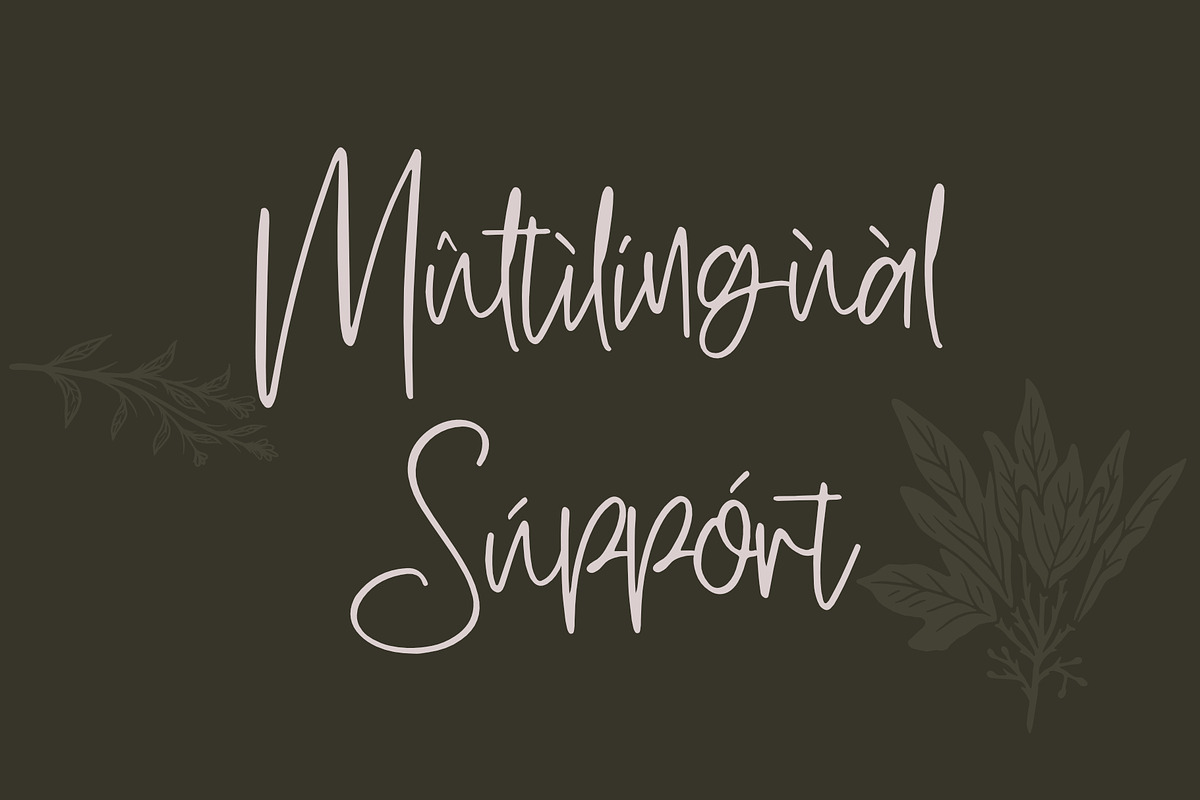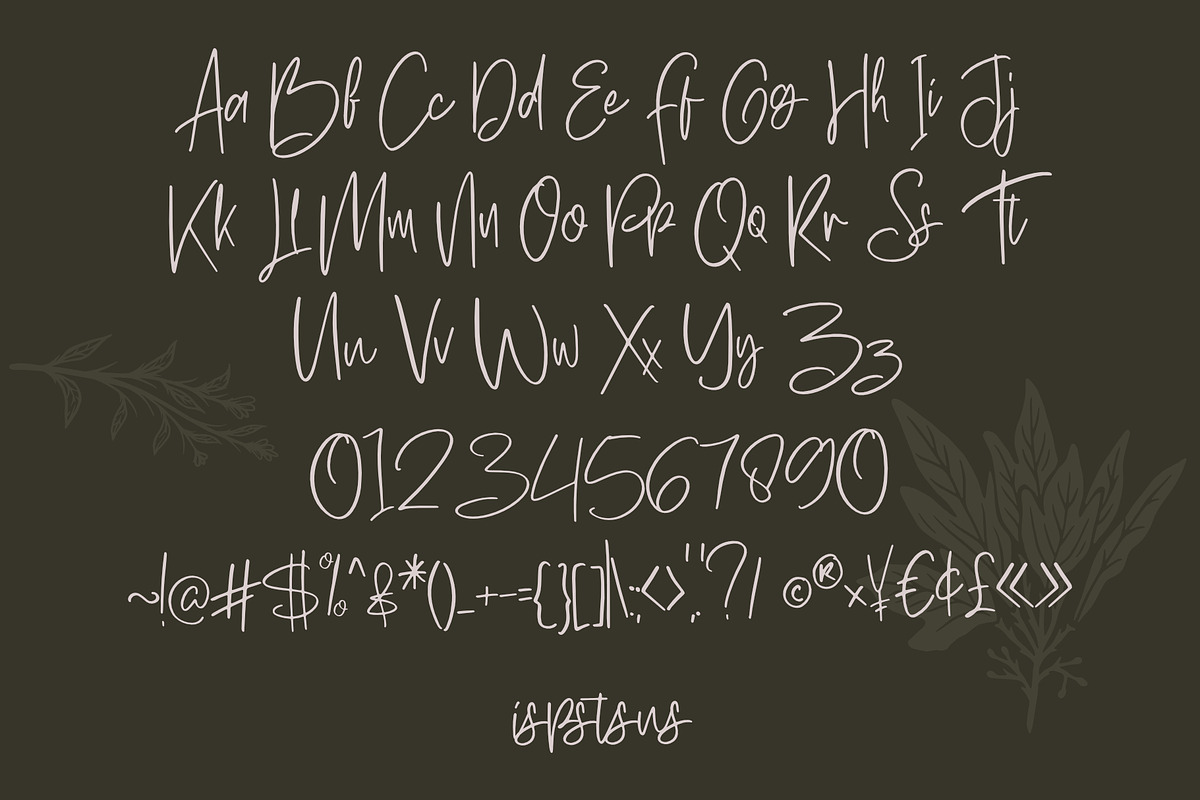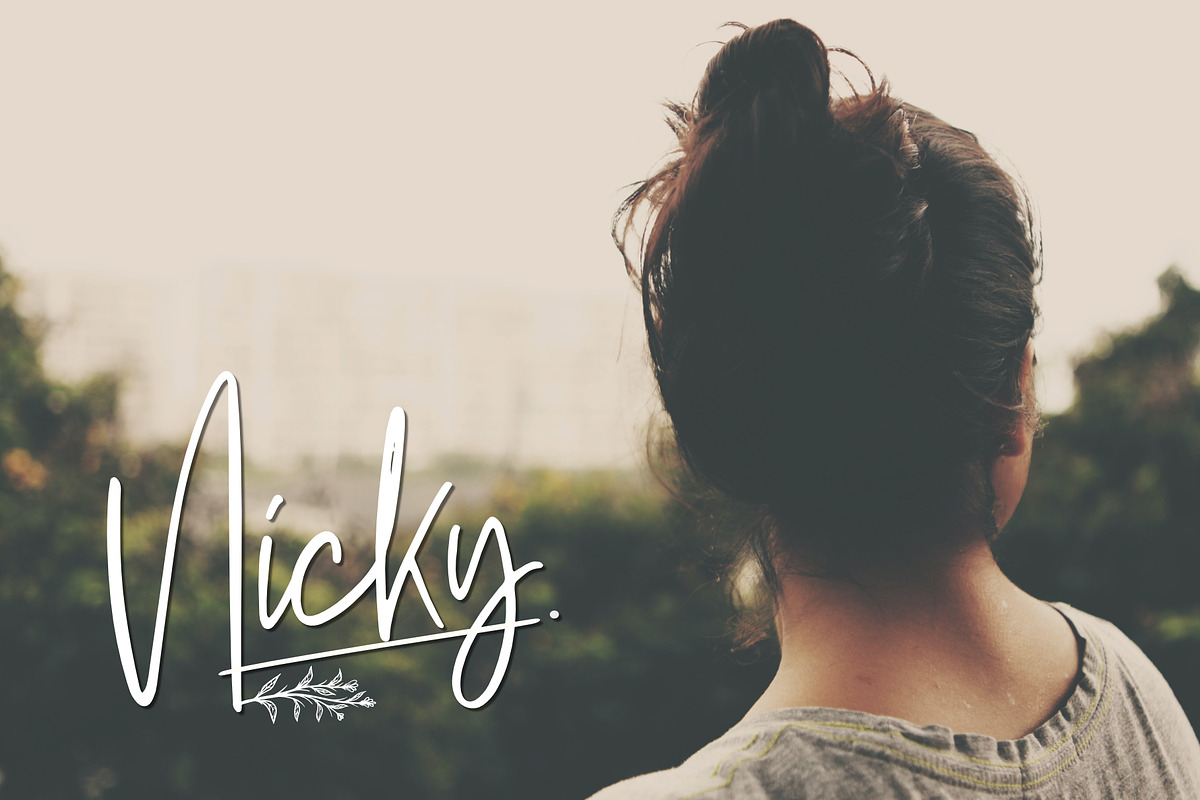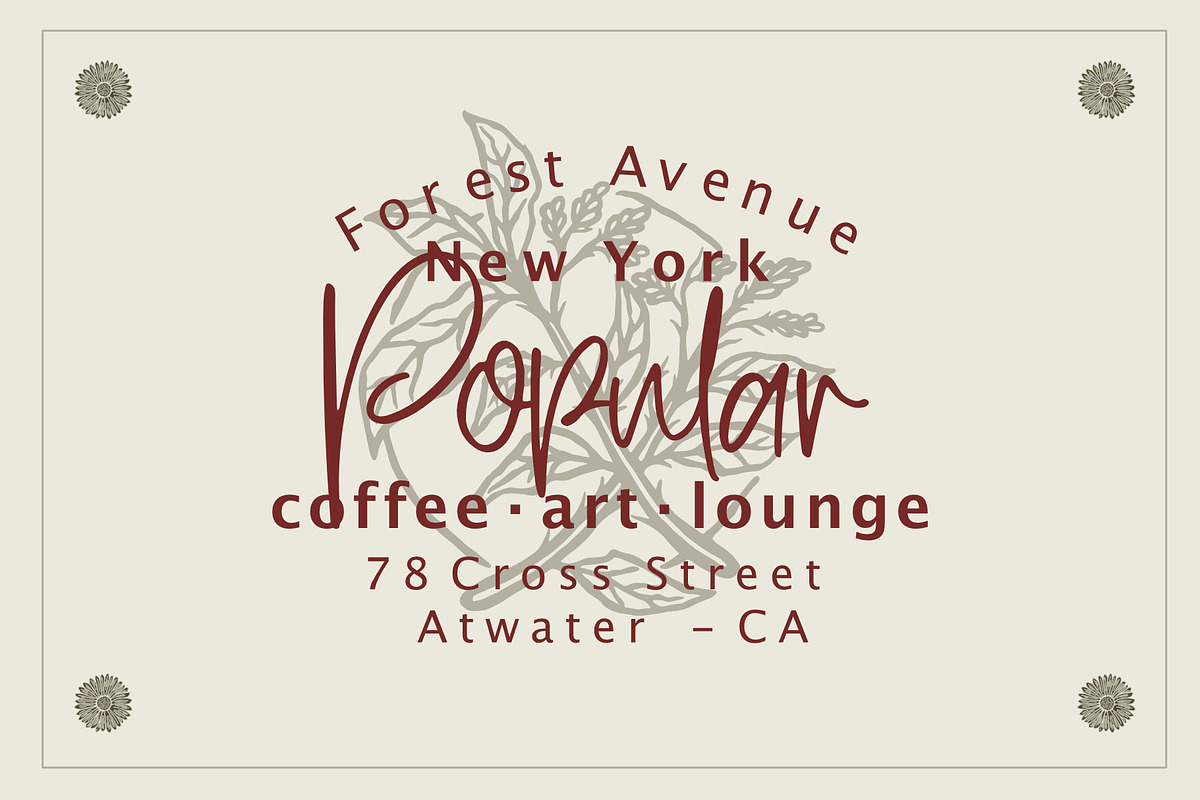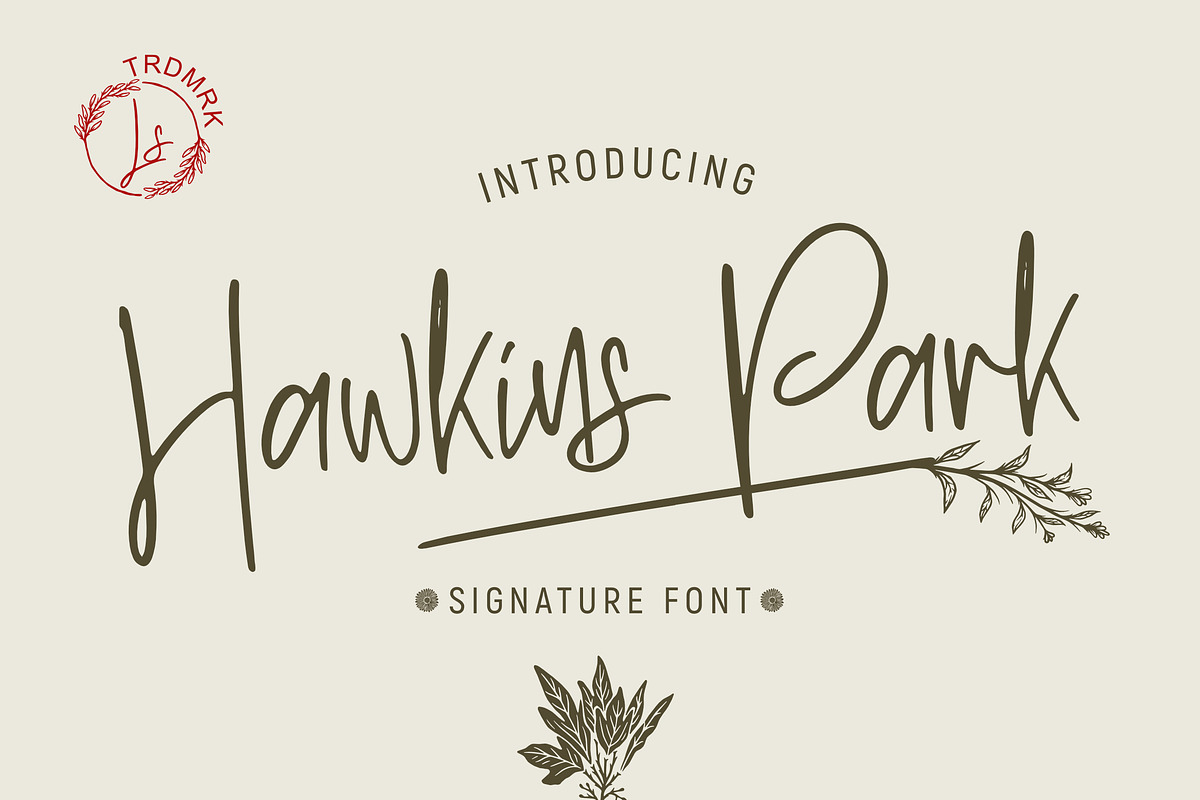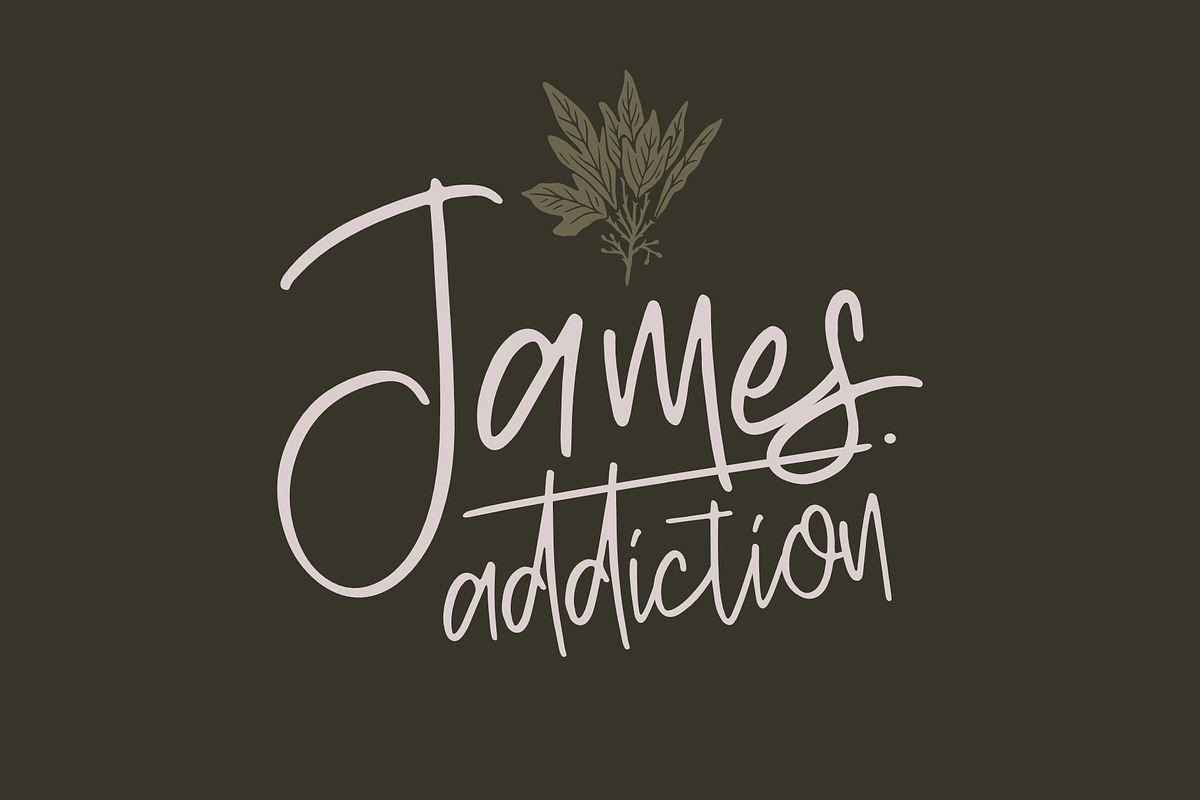
Hawkins park
Hawkins park Script Font
This pair was inspired by the retro poster design that i saw on some coffee shop, It was crafted by hand specially to add natural handmade feeling in its brand identity than i make it clean with pentool.
Opentype features Hawkins park Script font has 178 character set included Hawkins park Script Font is very good looking in logo, labels, t-shirt prints, product packaging, invitations, advertising and others.
- Multilingual support (Western European characters).